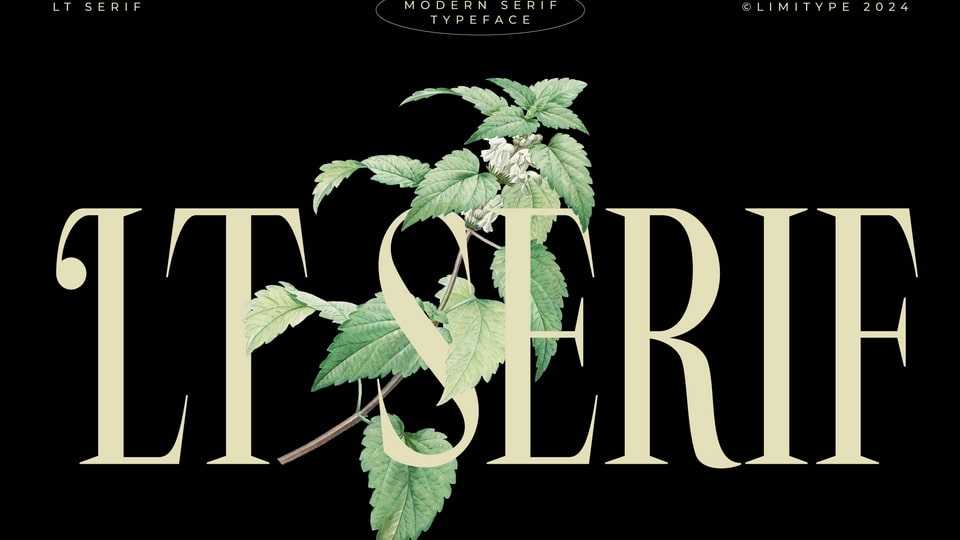
Download LT Serif font, a typeface that presents a modern, minimalist, and elegantly crafted serif font, featuring distinctive alternatives for select capital letters with stems.